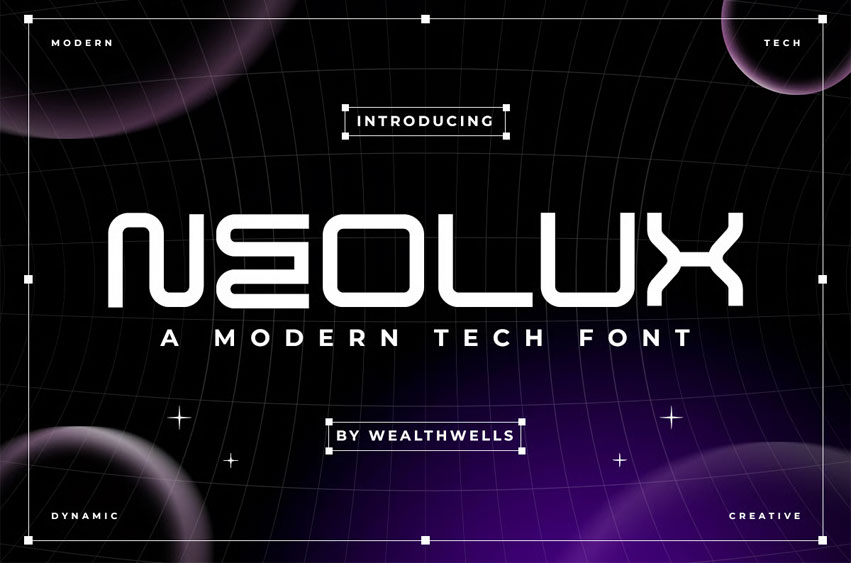
Neolux Font is a clean, contemporary typeface crafted for bold branding, modern headlines, and impactful design statements. With sleek lines and balanced letterforms, Bahasans is perfect for logos, posters, and editorial layouts that need a touch of elegance and clarity.
Its geometric precision and confident personality make it ideal for visual storytelling, while its minimalist structure ensures a fresh, versatile look across various applications.